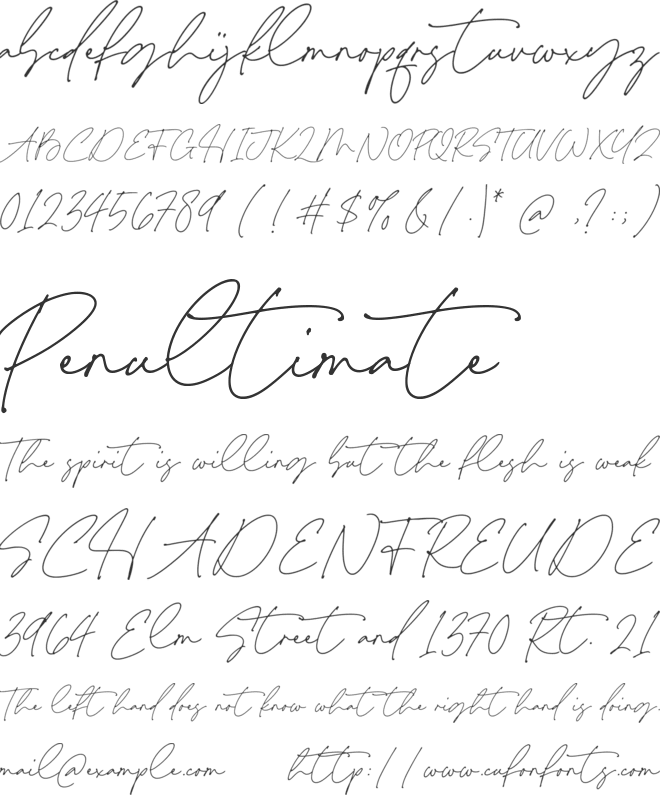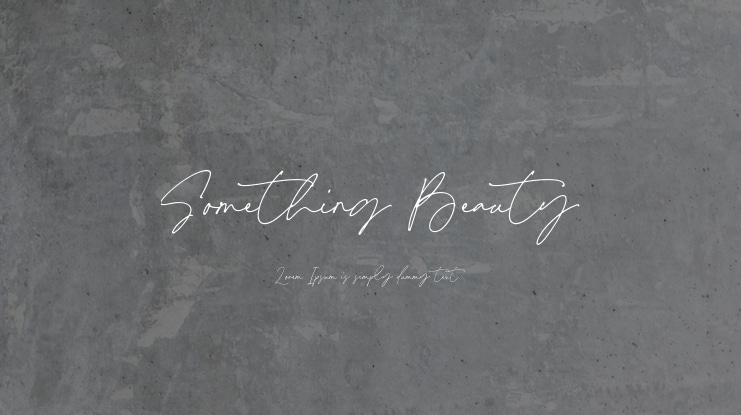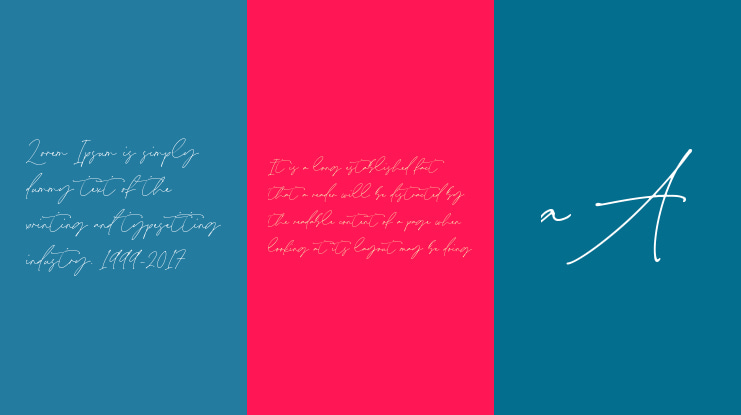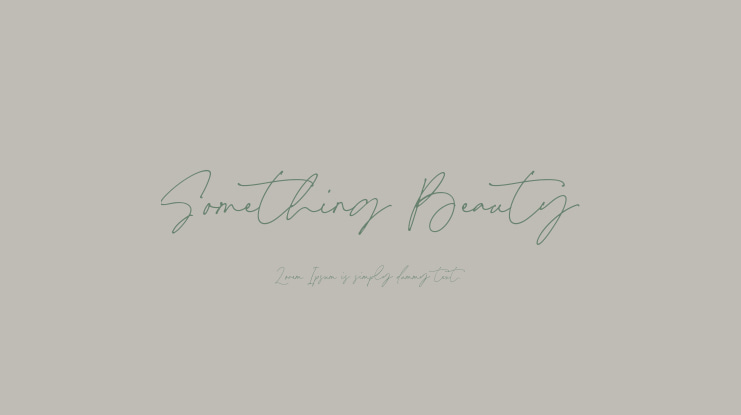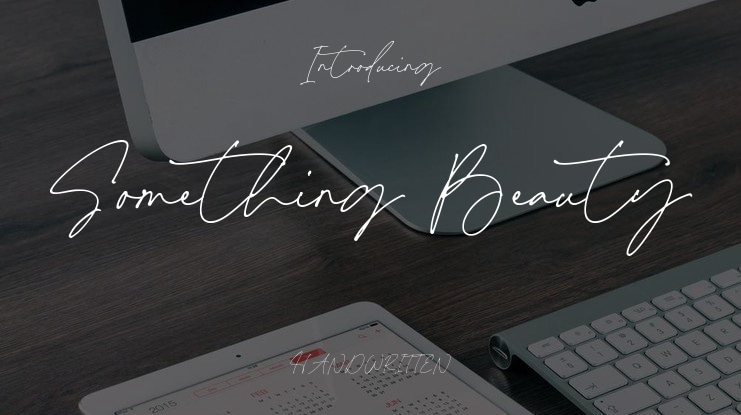
Something Beauty Font
Introducing the Something Beauty Handwritten Script Font by Timurtype Studio! This elegant and charming font is designed to enhance your design projects with its graceful and flowing letterforms. Its delicate curves and gentle strokes create a harmonious and balanced visual appeal, perfect for conveying a sense of beauty and sophistication. Whether you're creating wedding invitations or branding materials, the Something Beauty font's versatility makes it suitable for a wide range of design purposes.